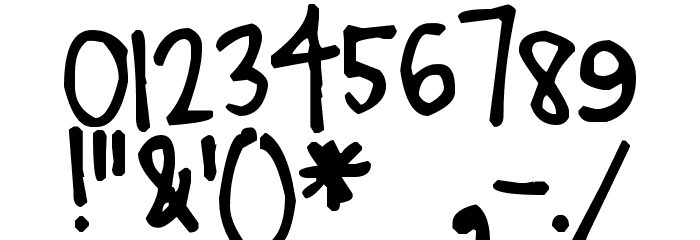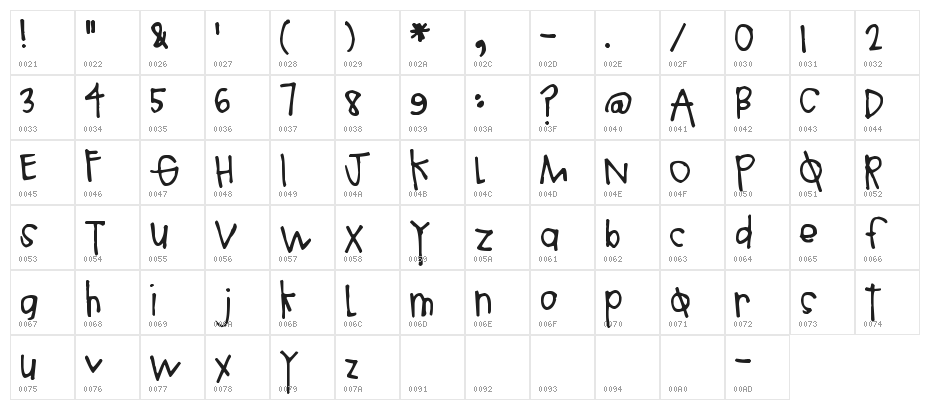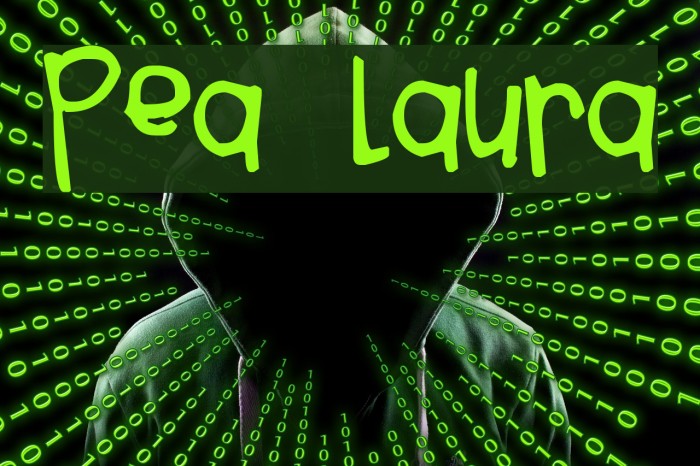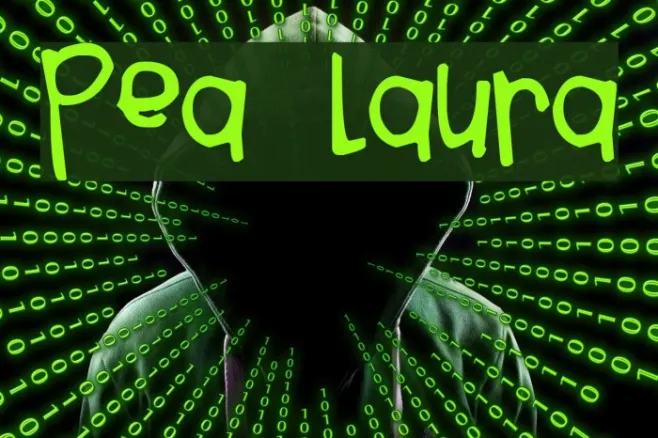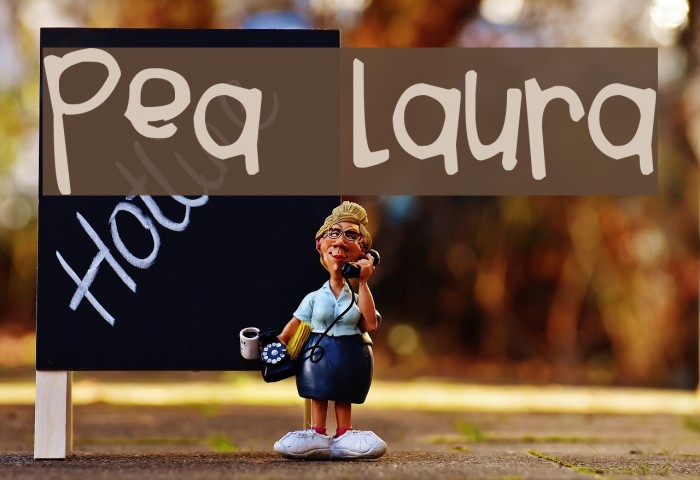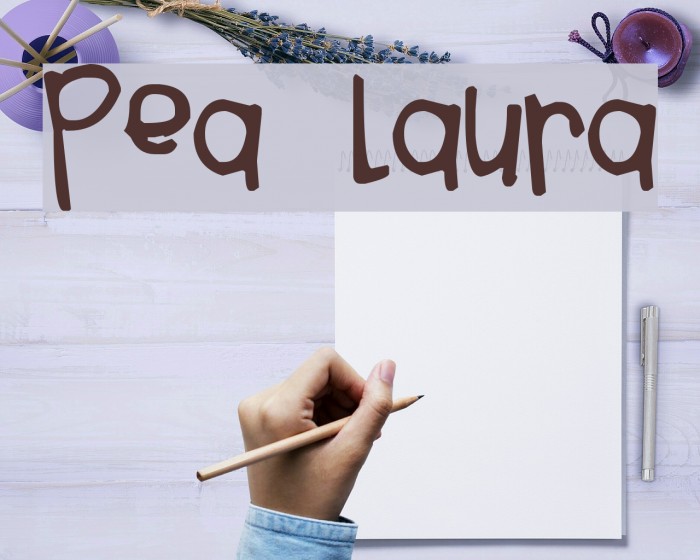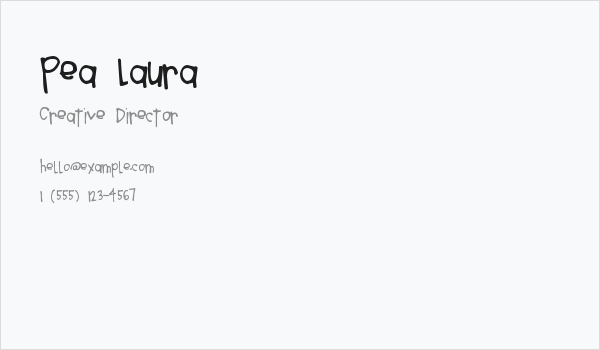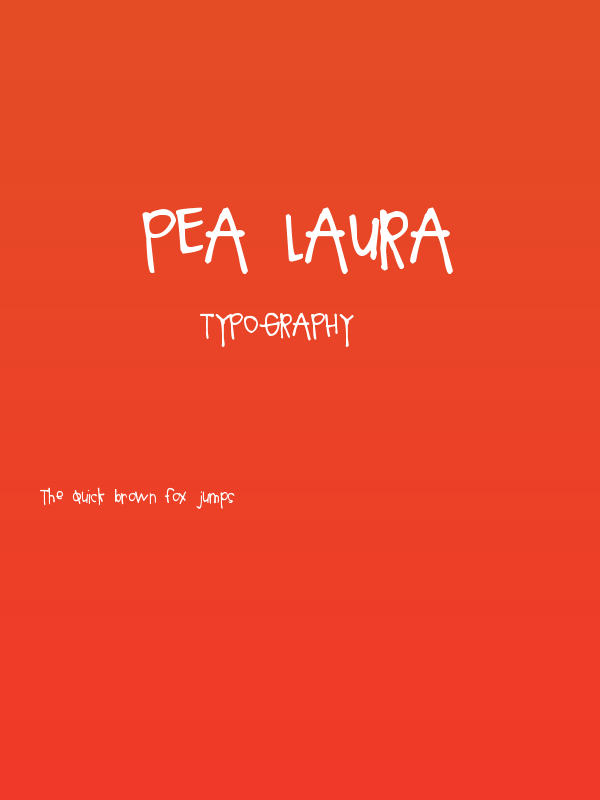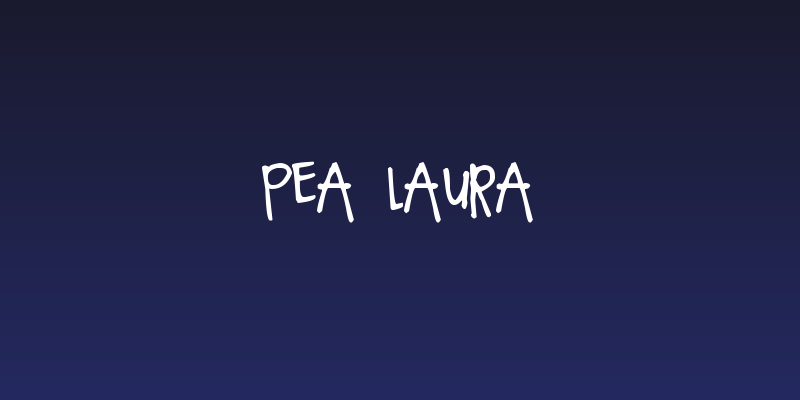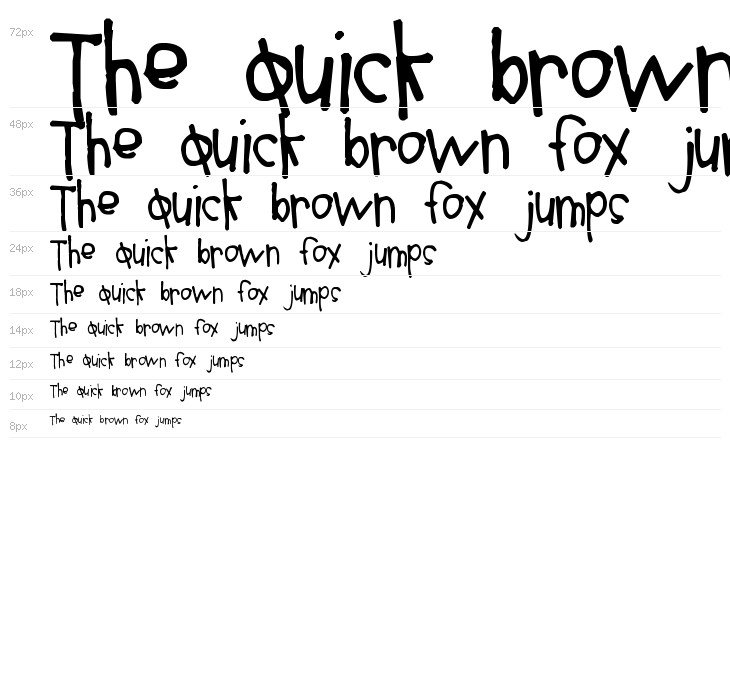
Pea Laura Font
Pea Laura Description
This playful and informal font features a handwritten style with a casual, friendly appearance. The letters are uneven and slightly irregular, giving it a personal touch that mimics natural handwriting. The strokes are bold and consistent, with a medium contrast between thick and thin lines. The characters are slightly tilted, adding to the whimsical and relaxed feel. This font includes both uppercase and lowercase letters, numbers, and a selection of special characters, making it versatile for various uses.
Overall StyleCasual, Playful
Use CaseGreeting cards, Informal branding, Personal notes
Proposed ProjectsIdeal for personal notes, greeting cards, children's books, and informal branding projects.